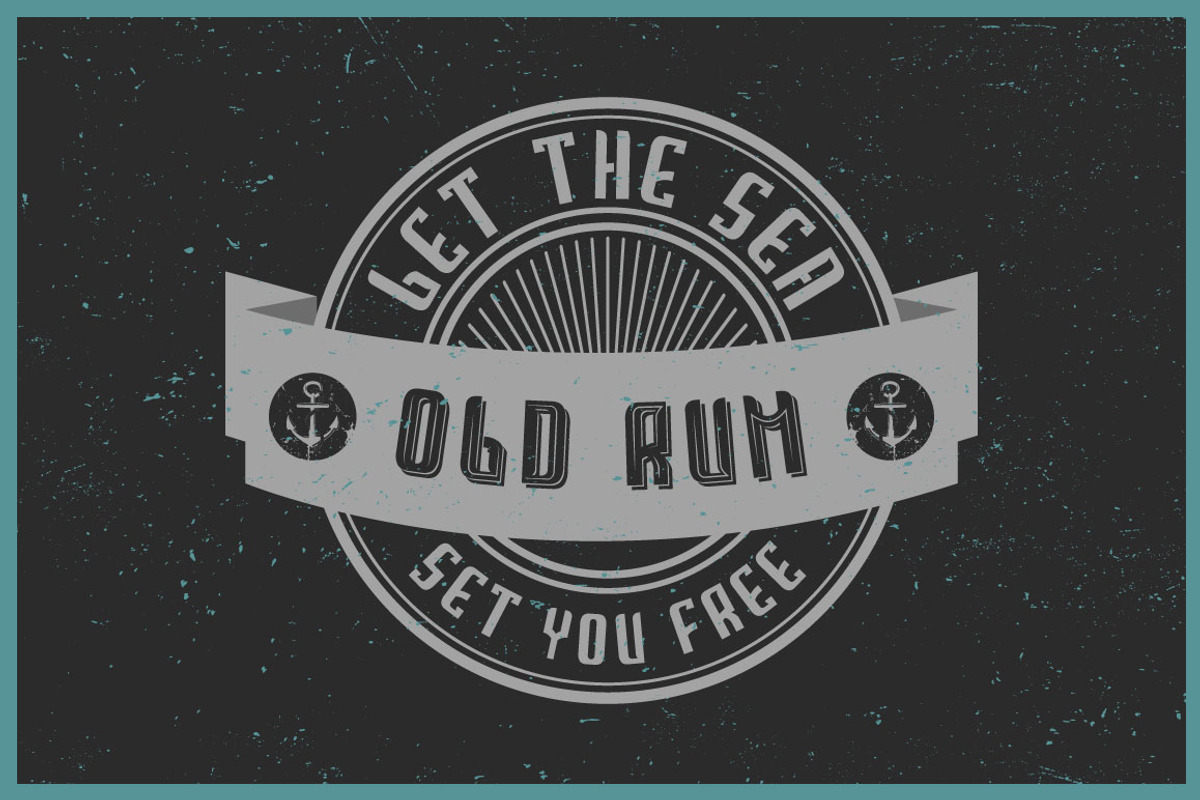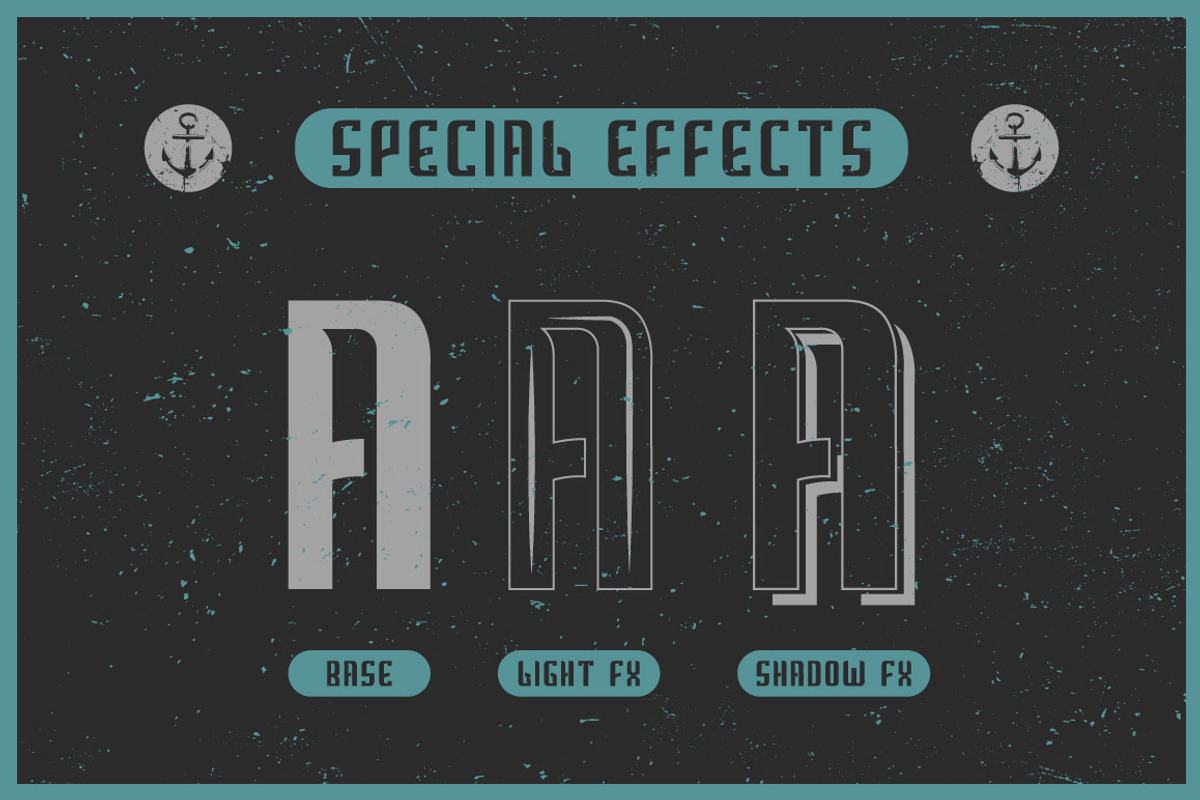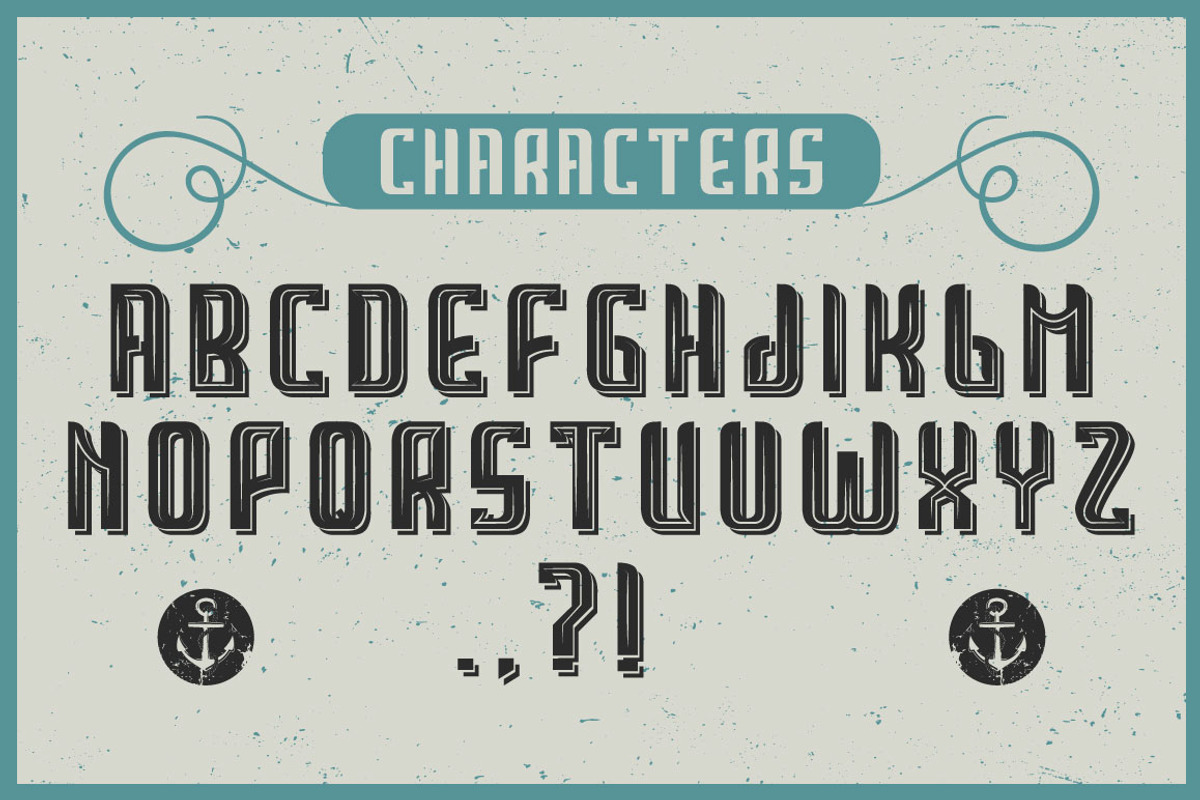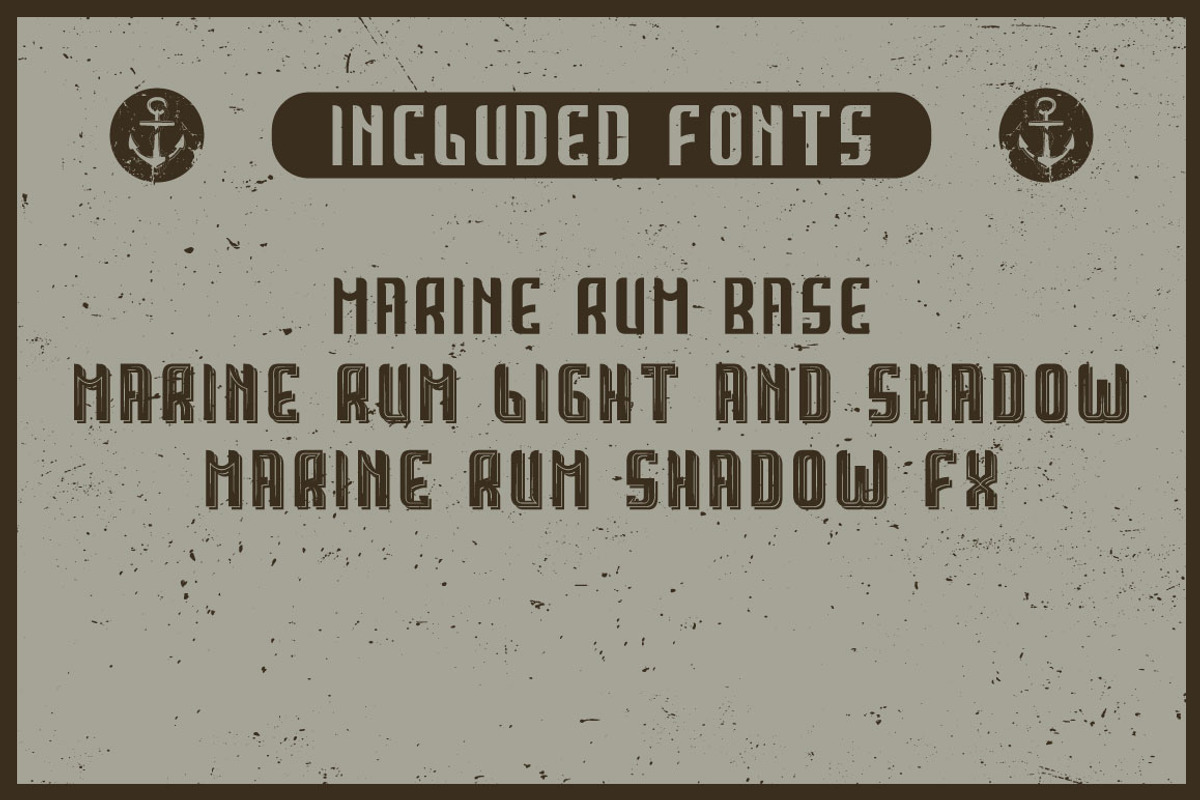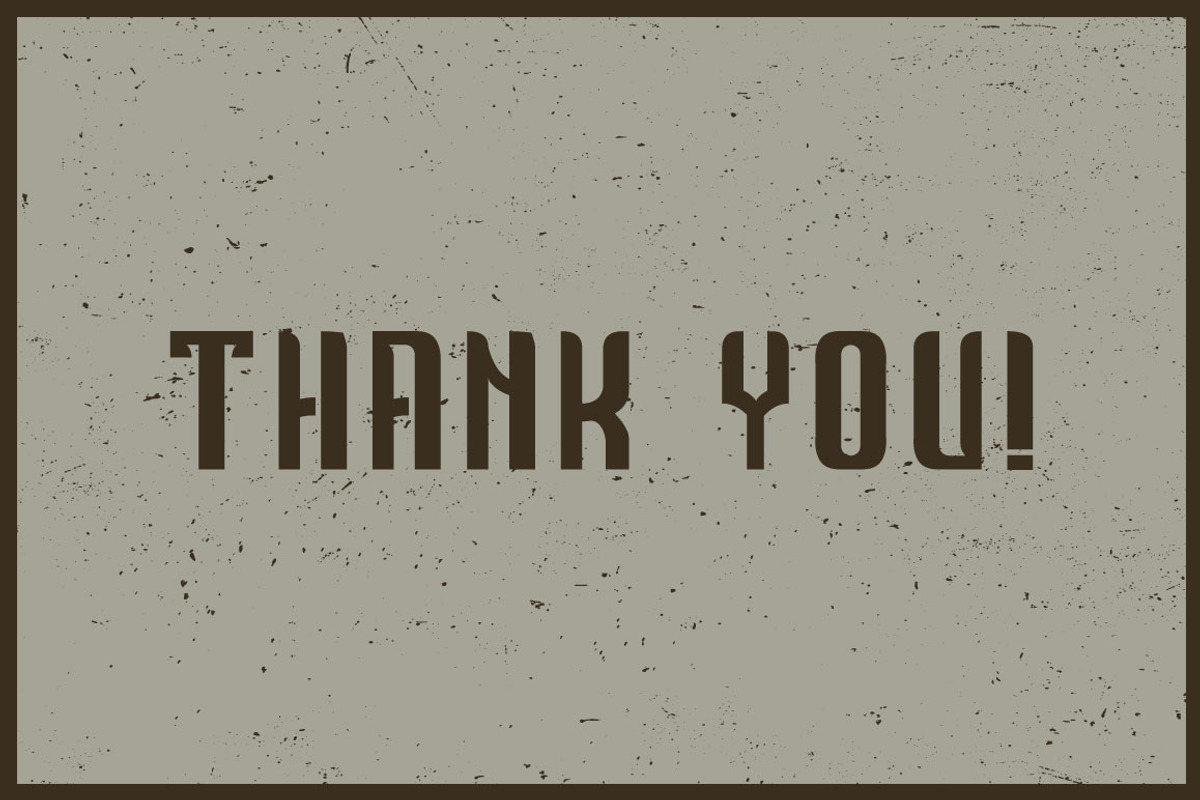
Handcrafted Marine Rum ladel font
Handcrafted Marine Rum ladel font by Heatherinsane is a font selected for branding, posters, packaging, typography.
- 3 fonts in complect with special effects
- You can mix light and shadow effects as shown at 4-th screenshot
Why Handcrafted Marine Rum ladel font is worth a look
Handcrafted Marine Rum ladel font by Heatherinsane fits naturally into Branding, posters, packaging, typography.